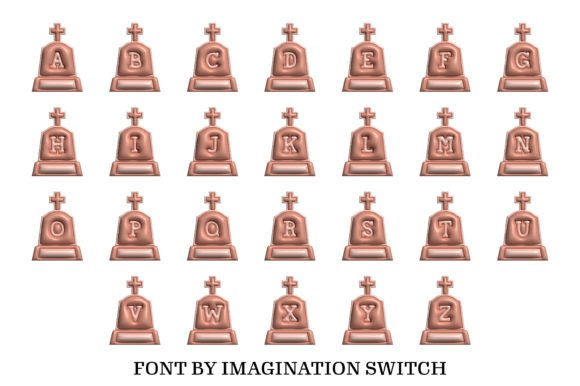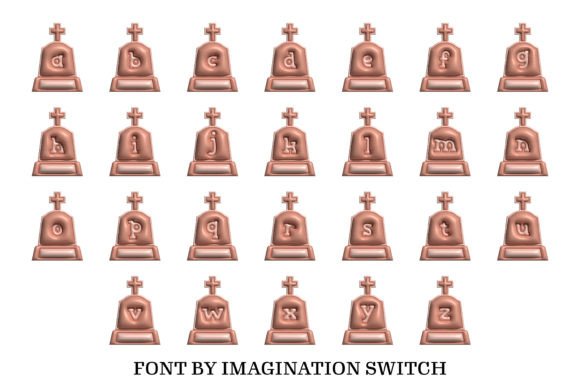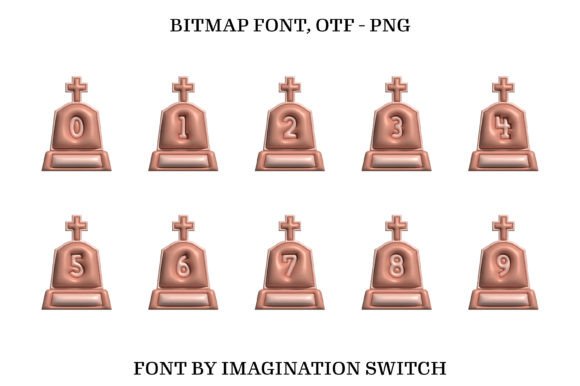
The Designer’s Delight: Gravestone Inflated Font
Have you ever been in the middle of a design project, and suddenly, you’re stuck on finding the perfect font? I recall a recent experience where I was working on a client’s funeral program, and I needed a font that would convey a sense of depth and dimensionality. That’s when I stumbled upon the Gravestone Inflated font, and it completely transformed my design. In this article, we’ll dive into the world of Gravestone Inflated, exploring its features, uses, and some fantastic alternatives.
A Personal Review: What I Love and What I Don’t
- 💥 Unique 3D style: Gravestone Inflated’s 3D effect creates an illusion of depth, making it perfect for headings, titles, and emphasis text.
- 🎨 Color versatility: The font’s clever use of color allows for a dynamic and engaging appearance, making it suitable for various design projects.
- 👍 Ease of use: With its OpenType features and glyphs, Gravestone Inflated is easy to use, even for those new to font manipulation.
The Not-So-Perfect Aspects 🤔
- ⚠️ Limited legibility: Due to its 3D style, Gravestone Inflated may not be the best choice for body text or long paragraphs.
- 🤔 Occasional inconsistencies: Some characters may appear slightly inconsistent in size or shape, which can be distracting if not addressed.
Exploring Alternatives: Similar Fonts to Gravestone Inflated
If you’re looking for similar fonts or want to experiment with different styles, consider the following options:
- Blast Furnace: A bold, industrial-style font with a 3D effect, perfect for headings and titles.
- 3D Block: A geometric font with a blocky, 3D appearance, suitable for designs that require a modern, edgy look.
- Rockwell Extra Bold: A classic, serif font with a strong, dimensional appearance, ideal for body text and headings.
- Orbitron: A futuristic font with a 3D, orbital effect, perfect for designs that require a sense of movement and energy.
The Designer Behind Gravestone Inflated: A Backstory
While the true story behind Gravestone Inflated remains a mystery, it’s easy to imagine that the designer was inspired by the eerie, mystical atmosphere of old cemeteries. Perhaps they wanted to create a font that would evoke a sense of depth and dimensionality, reminiscent of ancient gravestones. Whatever the inspiration, Gravestone Inflated has become a unique and captivating addition to the world of typography.
| Author | Imagination Switch |
Q: Is Gravestone Inflated suitable for body text?
A: Due to its 3D style, Gravestone Inflated may not be the best choice for body text or long paragraphs. It’s better suited for headings, titles, and emphasis text.